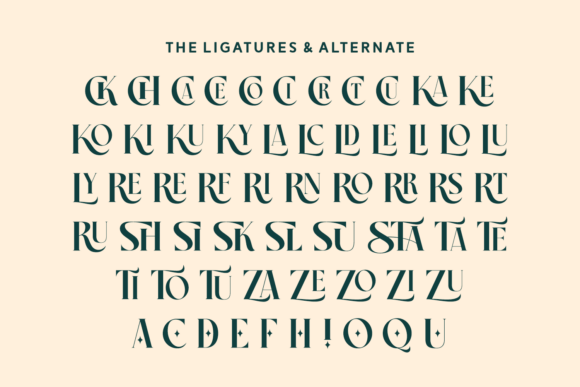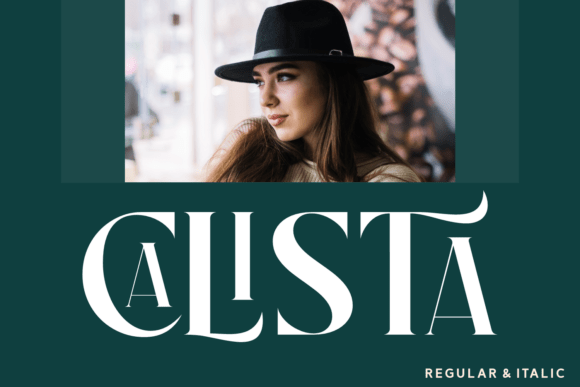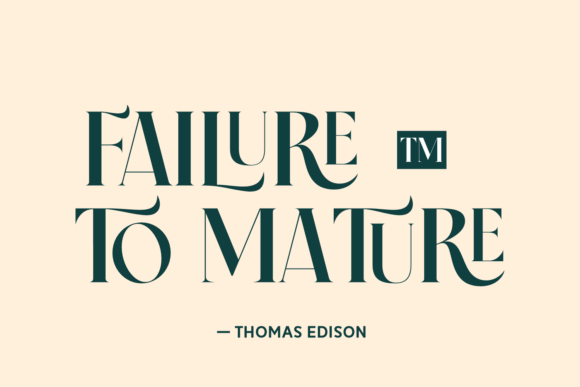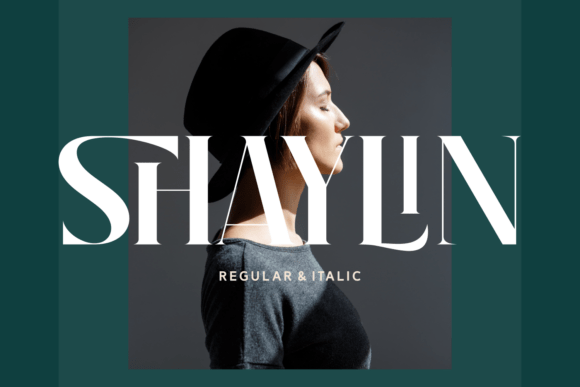
Stanza Font
Embrace elegance and sophistication with “Stanza”. A dazzling blend of Serif and Luxury elements, this charming font steps outside the box to give your artwork a vibrant touch. Bold yet delicate, it offers a fashionable addition to your graphic design toolkit, perfect for crafting inviting Romantic posters or Heart Swash designs.